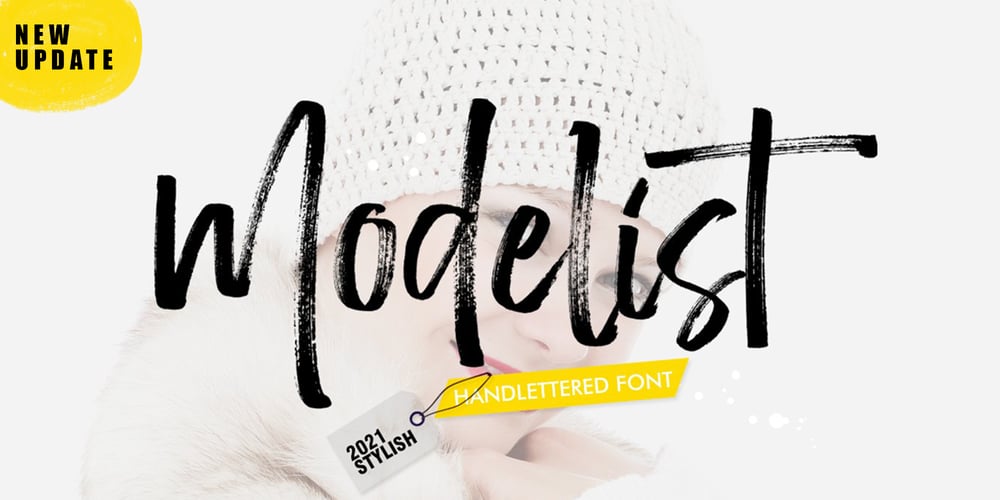
Modelist Font Family was designed by Muhammad Fajar and published by Lucky Type. Modelist contains 2 styles and family package options. Modelist is a new modern brush font with a bold style and contemporary approach to design, naturally handmade, very suitable for use in title designs such as clothing, invitations, book titles, stationery designs, quotes, branding, logos, greeting cards, T-shirts, packaging designs, posters, and more.Complete with upper and lower case letters, and multi-language support, numbers, punctuation, and some perfect ligatures.Modelist Brush Font has been updated and a clean version is now available.Thank you very much for searching, Hope you like it.